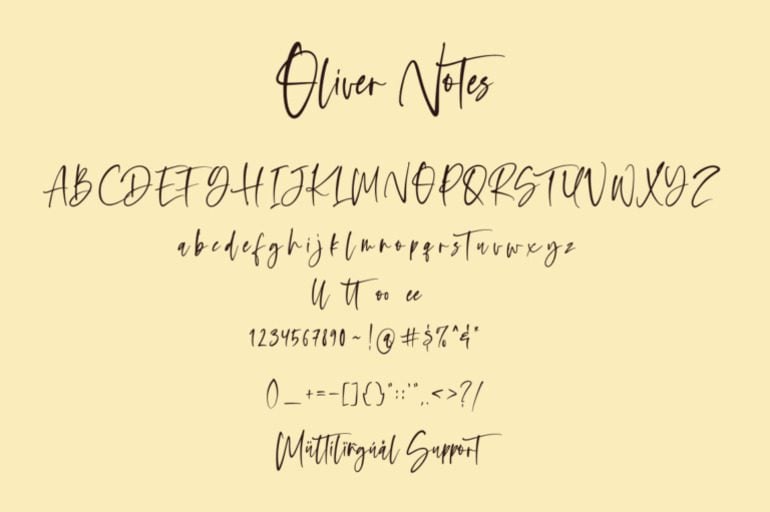
Oliver Notes Font
Oliver Notes, a handwritten font inspired by vintage notebooks. With its relaxed, informal style and subtle textures, this font adds a touch of authenticity to your designs. Perfect for branding, packaging, and lifestyle projects. Capture the essence of timeless elegance with Oliver Notes.